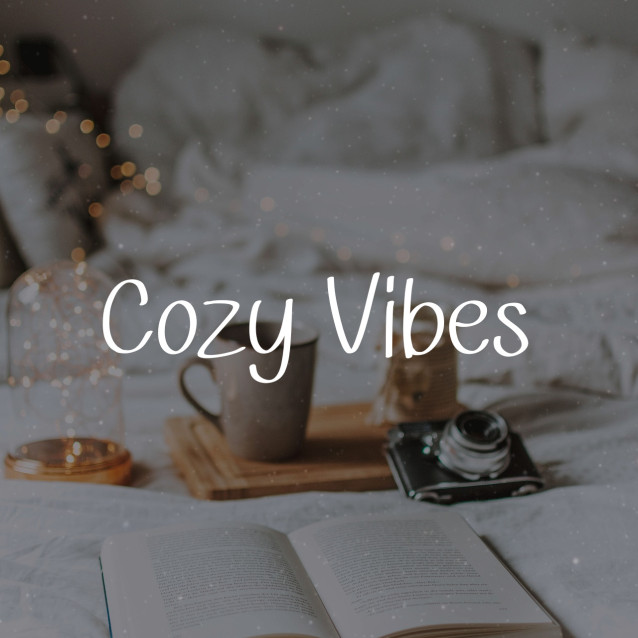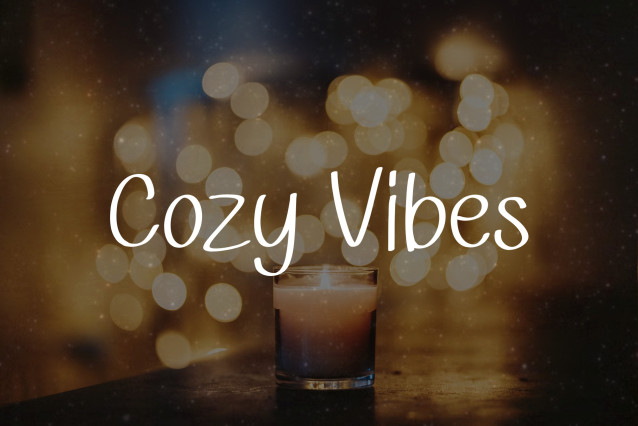
Cozy Vibes Font
Cozy Vibes Font is a simple and friendly handwritten font. Its natural and unique style makes it incredibly fitting to a large pool of designs. The only limit is your imagination!